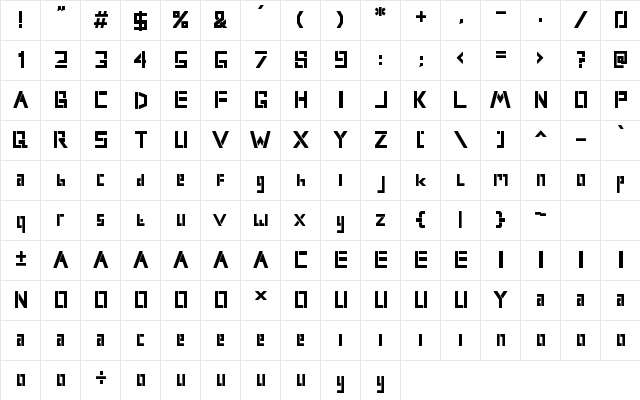
New System Regular
Design Context for New System Typeface
New System takes a measured approach to typography — its balanced proportions and neutral character make it a reliable workhorse for both digital and print work.